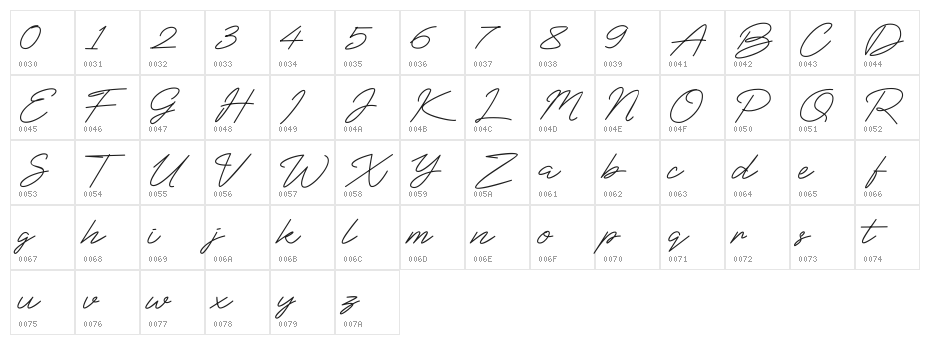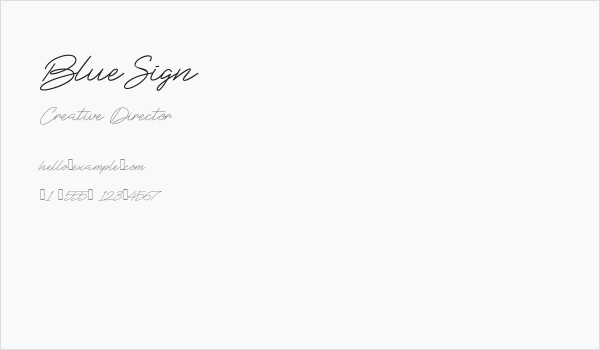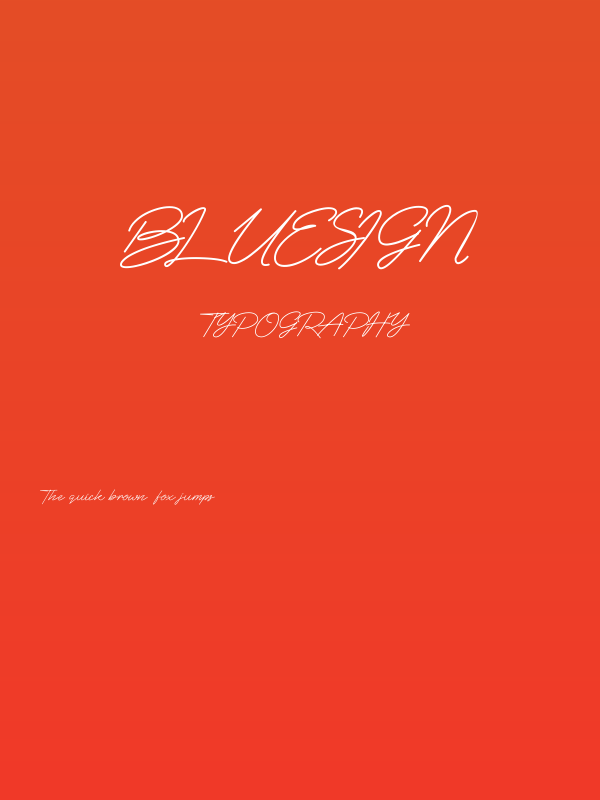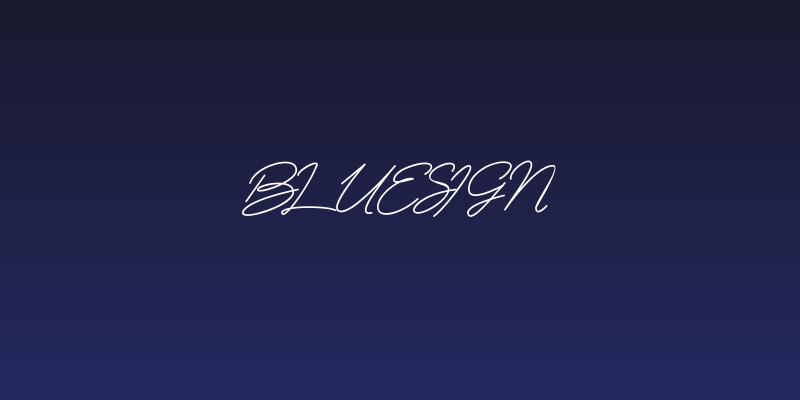
BlueSign Font
BlueSign Description
This elegant script font features a flowing, cursive style with smooth, continuous strokes that mimic natural handwriting. The uppercase letters are tall and slightly slanted, with graceful loops and curves that add a touch of sophistication. The lowercase letters maintain a consistent flow, connecting seamlessly to create a harmonious look. The numerals are distinct yet complementary, with a slight slant that matches the overall style. Special characters like the ampersand and question mark are intricately designed, enhancing the font's decorative appeal. This font is perfect for projects that require a personal, handwritten touch.
| Overall Style | Elegant, Handwritten |
| Use Case | Logos, Invitations, Personal Branding |
| Proposed Projects | Ideal for wedding invitations, greeting cards, personal branding, and elegant logos. |